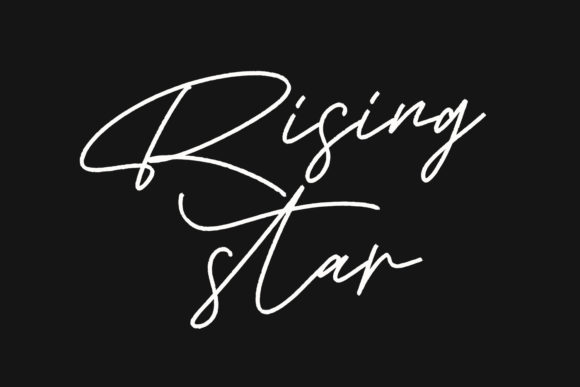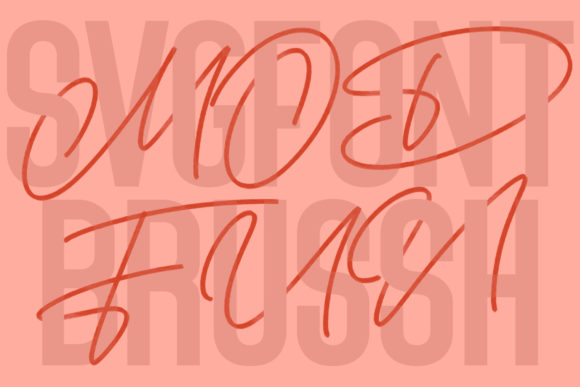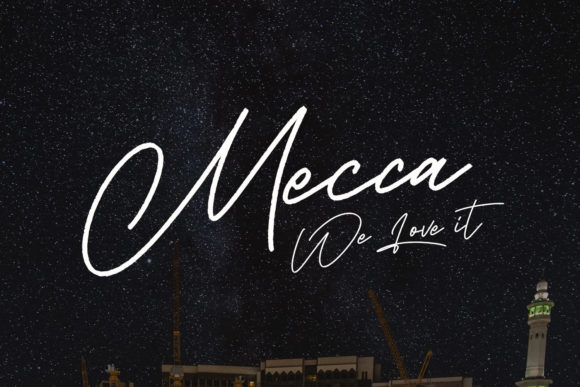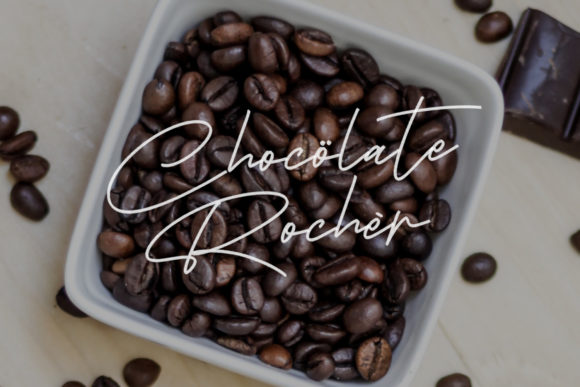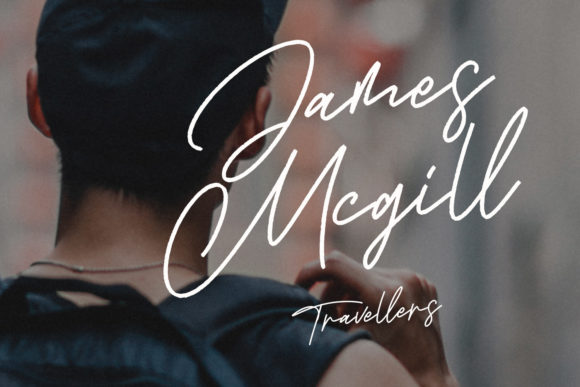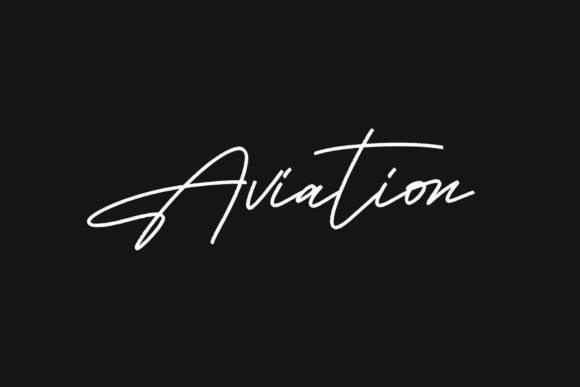
Introducing Frivolite Lettering Font: Elevate Your Designs with Classic Elegance
Are you a designer or crafter looking for a font that exudes timeless sophistication while still feeling approachable and friendly? Look no further than Frivolite Lettering Font. This stunning hand-brushed font is sure to become a staple in your design toolkit, offering the perfect blend of classic style and modern charm.
The Characteristics of Frivolite Lettering Font
Frivolite Lettering Font boasts an incredibly classic style, reminiscent of traditional lettering techniques. Its hand-brushed appearance gives it a unique, organic feel that sets it apart from more uniform, digital fonts. The strokes are smooth and fluid, with a subtle texture that adds depth and character to any design.
Despite its classic roots, Frivolite Lettering Font remains surprisingly versatile and friendly. It’s a font that can effortlessly transition from elegant wedding invitations to playful craft projects, making it an excellent choice for designers and crafters who work across various mediums.
Why Choose Frivolite Lettering Font?
So, what makes Frivolite Lettering Font the perfect choice for your design projects? Here are just a few reasons why designers and crafters are falling in love with this gorgeous font:
- Unique and Original Designs: With Frivolite Lettering Font, you can create one-of-a-kind designs that stand out from the crowd. Its distinctive hand-brushed style ensures that your projects will be instantly recognizable and memorable.
- Elegant and Sophisticated: Whether you’re working on a luxury brand campaign or a high-end wedding invitation, Frivolite Lettering Font brings an air of elegance and sophistication to any design.
- Versatile and Adaptable: From digital projects to print materials, Frivolite Lettering Font can be used across a wide range of mediums and applications.
- Easy to Read and Understand: Despite its ornate appearance, Frivolite Lettering Font remains surprisingly legible, making it perfect for designs that require a clear and concise message.
Using Frivolite Lettering Font in Your Design Projects
Frivolite Lettering Font is incredibly easy to use, even for designers who are new to working with hand-brushed fonts. Here are a few tips for getting the most out of this beautiful font:
- Pair it with Contrasting Fonts: Combine Frivolite Lettering Font with simpler, sans-serif fonts to create visual interest and hierarchy in your designs.
- Experiment with Colors and Textures: Take advantage of Frivolite Lettering Font’s hand-brushed texture by experimenting with different colors, gradients, and textures.
- Pay Attention to Kerning and Spacing: As with any font, make sure to adjust the kerning and spacing to ensure that your text is clear and easy to read.